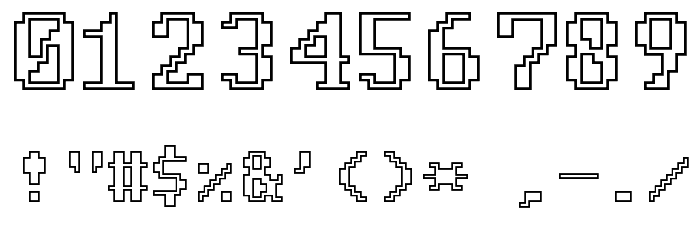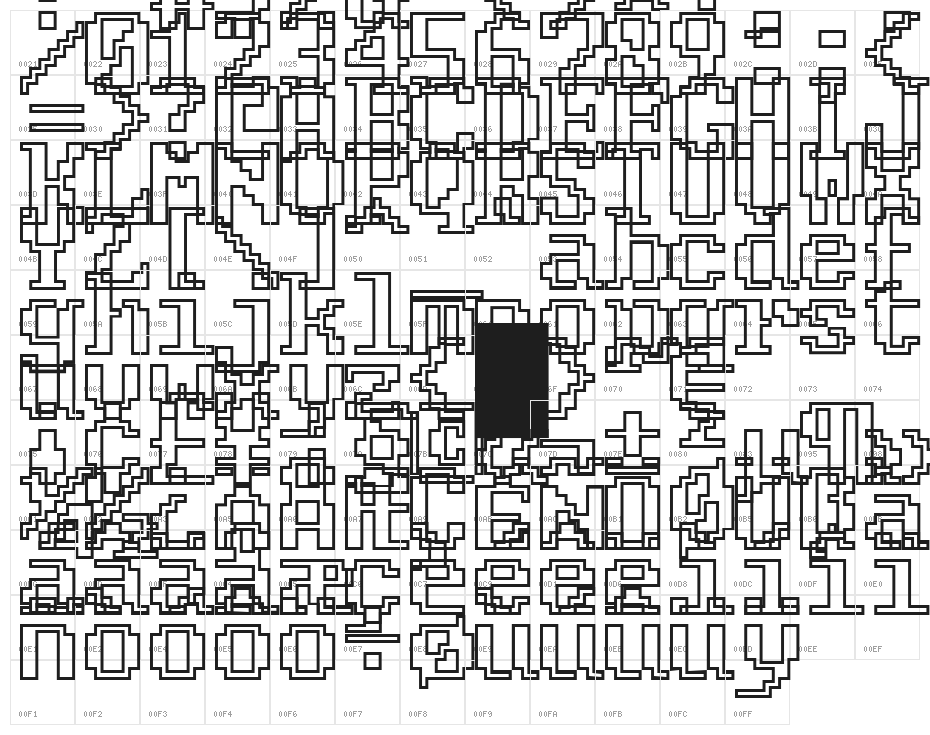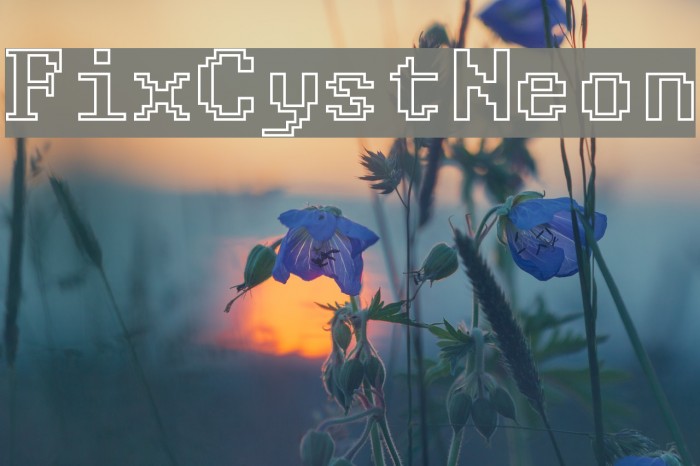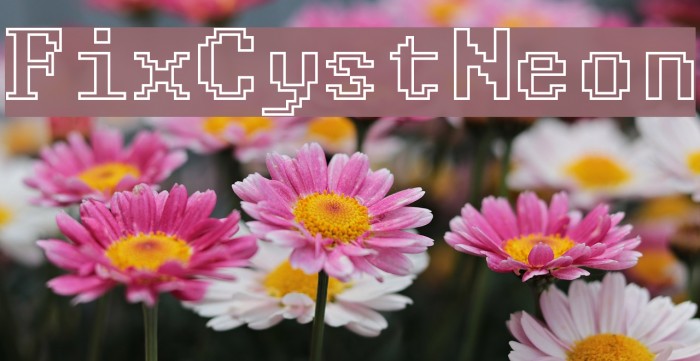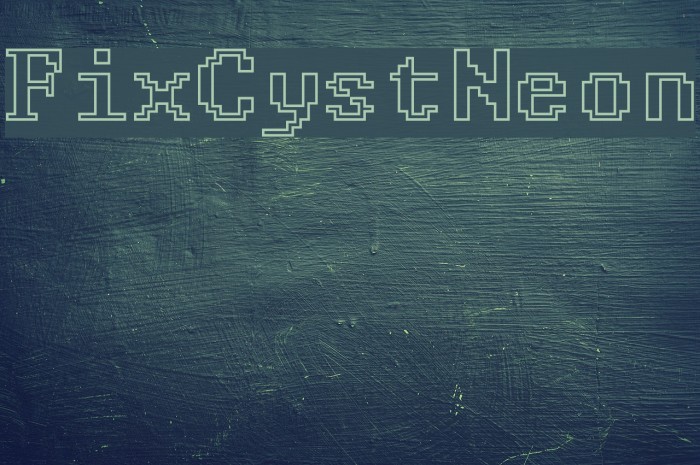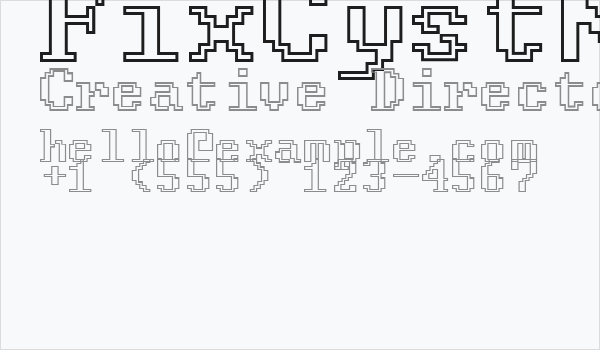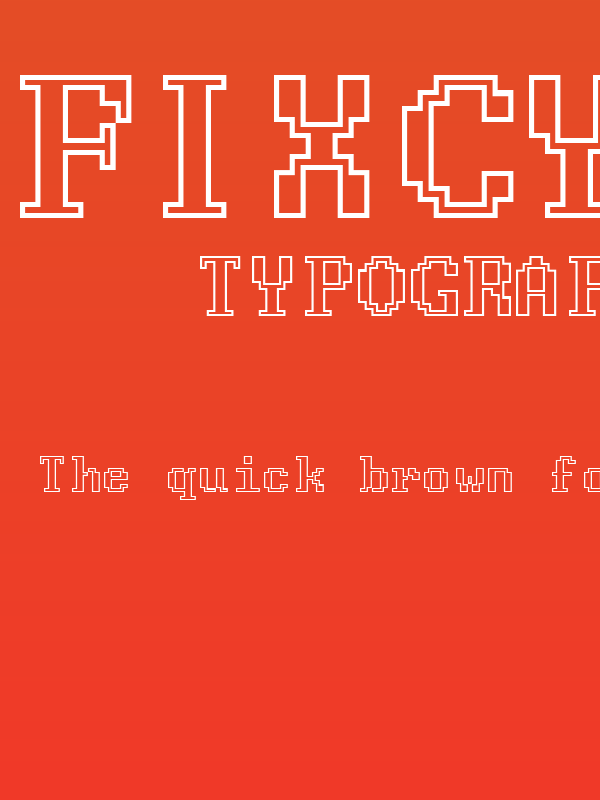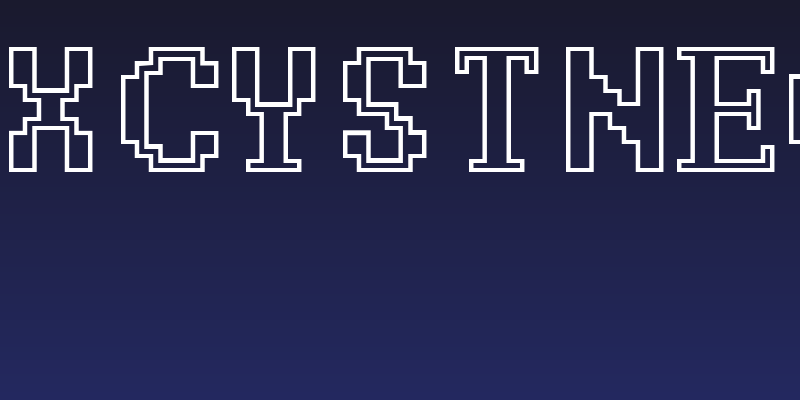
FixCystNeon Font
FixCystNeon Description
This font features a distinct, pixelated style reminiscent of early digital displays and retro video games. Each character is composed of bold, blocky outlines that give it a three-dimensional appearance. The uppercase and lowercase letters maintain a consistent height, contributing to a uniform look. The numerals and special characters follow the same pixelated design, ensuring cohesion across all elements. This font's unique style is both nostalgic and modern, making it suitable for projects that aim to capture a retro-futuristic aesthetic.
| Proposed Projects | Ideal for video game design, digital art projects, retro-themed posters, and branding that seeks a nostalgic touch. |